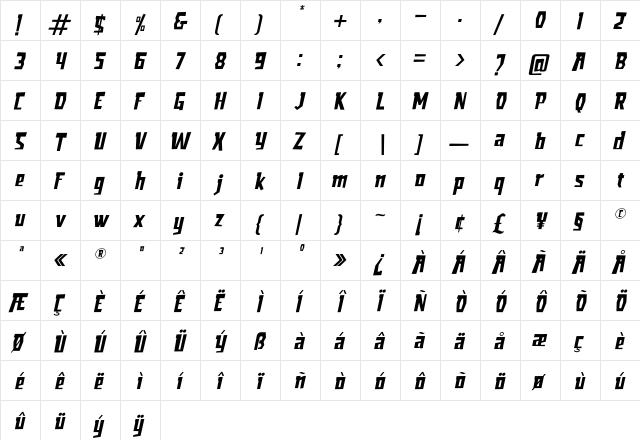
Armstrong Italic Regular
Design Context for Armstrong Italic Typeface
Armstrong Italic is a composed and adaptable typeface that performs quietly and consistently across a wide range of design contexts. The dynamic lean of this cut emphasises speed and emphasis in any layout.
Pro Tip: Use Armstrong Italic for emphasis, pull quotes, and subheadings where its slanted energy can add rhythm to the layout.